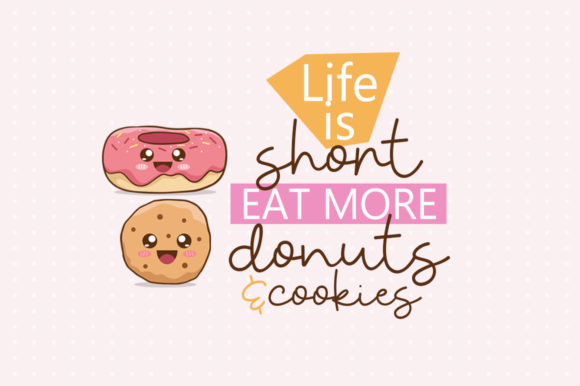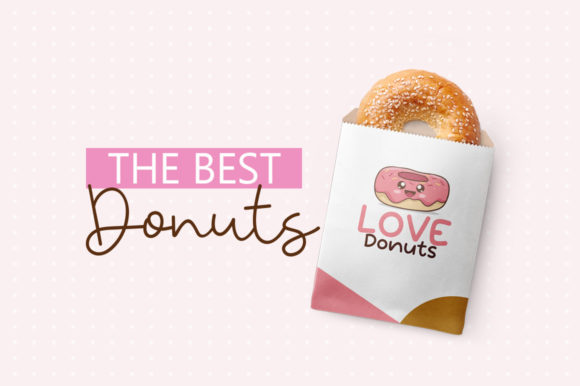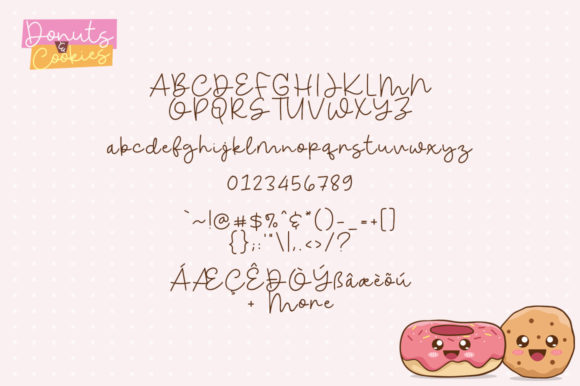
The Sweet Spot: Discovering the Delightful Donuts & Cookies Font
I’ll never forget the time I was working on a project for a children’s bakery, and I just couldn’t find the right font to match the playful vibe of their brand. The client wanted something that would make their customers feel like kids again, but everything I tried seemed either too serious or too over-the-top. That’s when I stumbled upon the Donuts & Cookies font, and it was love at first sight! 💕
This simple yet delicate script font has been a game-changer for my designs, and I’m excited to share its charms with you. Whether you’re a designer, crafter, or creative hobbyist, Donuts & Cookies is the perfect choice for adding a touch of whimsy to your projects.
- ✨ The playful, hand-drawn feel that makes it perfect for cartoon-related designs, children’s games, and more
- ✅ The font’s versatility – it works beautifully for both digital and print projects
- 💫 The way it pairs well with a variety of other fonts, making it easy to mix and match
- 🎉 The extensive character set, including support for multiple languages
While Donuts & Cookies is an amazing font, there are a few things to keep in mind:
- ⚠️ The font can be a bit finicky when it comes to kerning, so be prepared to make some adjustments for optimal results
- 🤔 Some of the more intricate glyphs might not display as crisply at very small sizes
According to its creators, the Donuts & Cookies font was inspired by the whimsical world of childhood treats. The designers wanted to capture the magic and wonder of indulging in sweet treats, and they succeeded with this delightful font.
Q: What type of projects is Donuts & Cookies best suited for?
A: Donuts & Cookies is perfect for cartoon-related designs, children’s games, bakery branding, and any project that requires a playful touch.
Q: Is Donuts & Cookies available in multiple languages?
A: Yes, Donuts & Cookies supports multiple languages, making it a great choice for international projects.
Q: Can I use Donuts & Cookies with other fonts in my design?
A: Absolutely! Donuts & Cookies pairs well with a variety of other fonts, so feel free to experiment with different combinations to find the perfect look for your project.